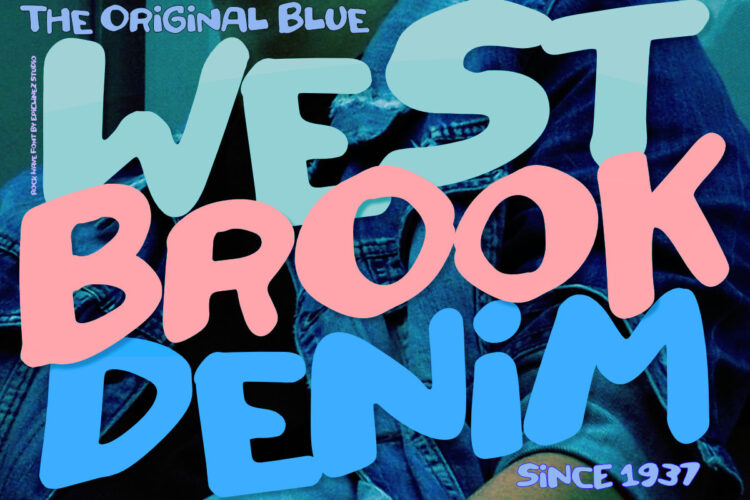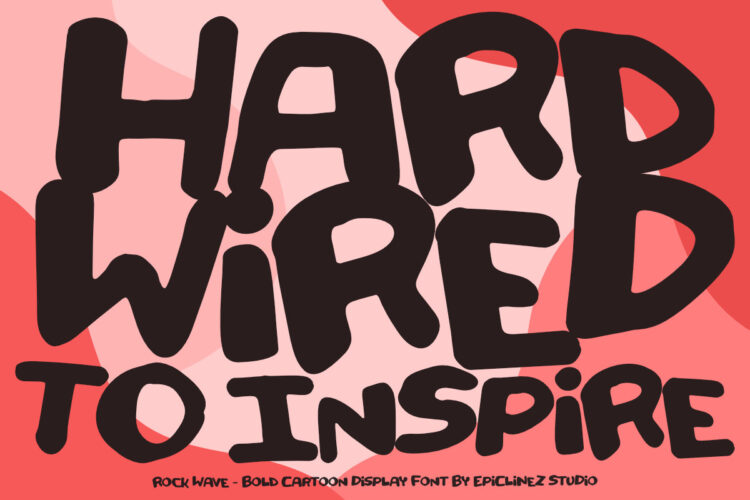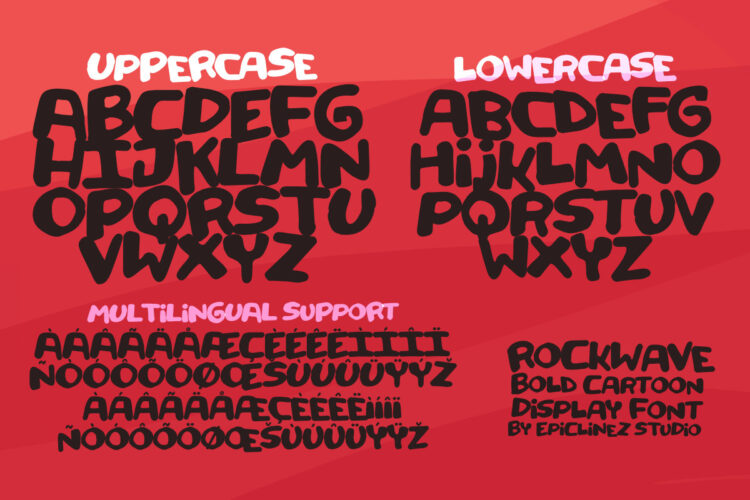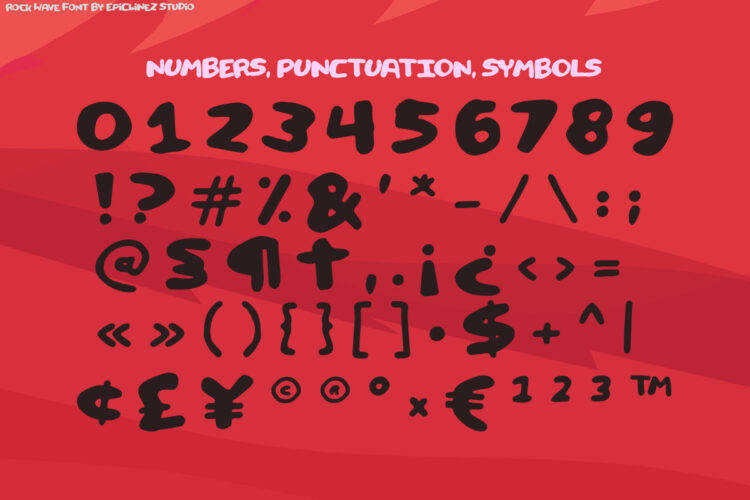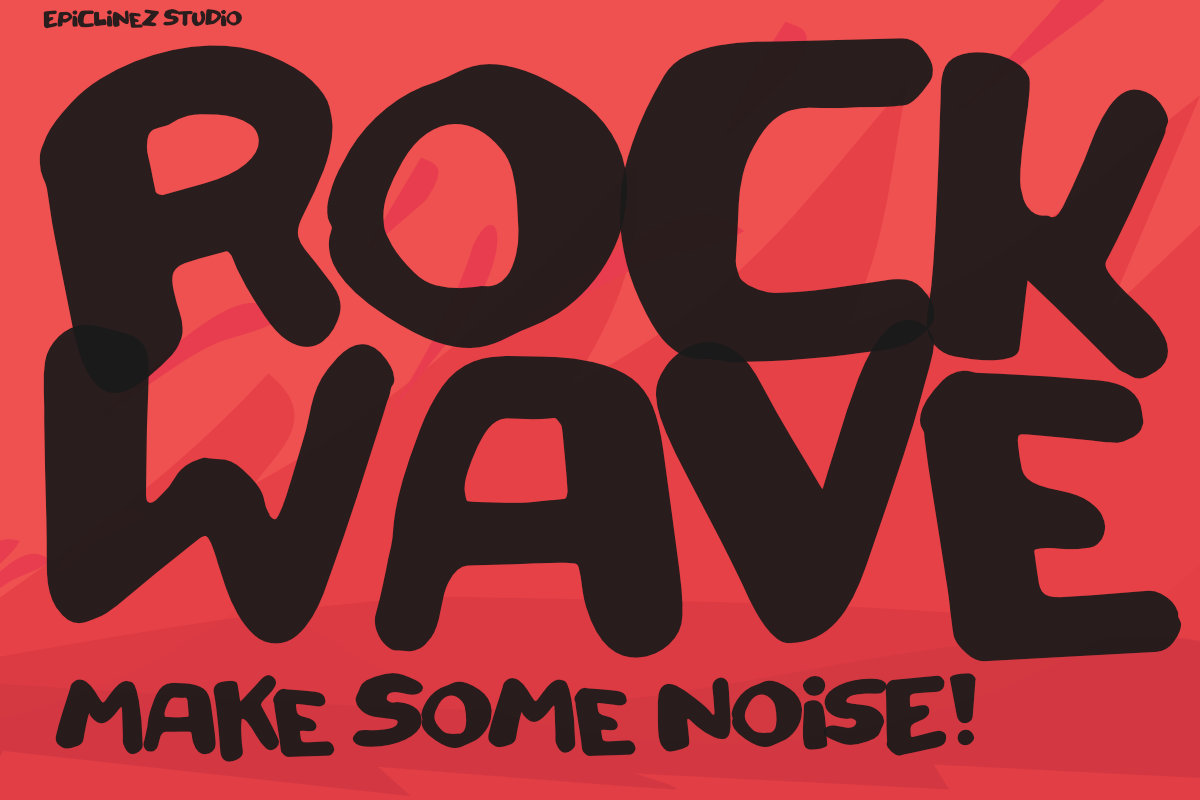
Rockwave is a bold and playful handwritten display font bursting with energy, personality, and fun. Featuring chunky, organic letterforms with a hand-drawn feel, this font delivers a cheerful and expressive look that’s perfect for eye-catching headlines and creative branding. Every character is designed with smooth curves and an authentic handmade touch, giving your projects a friendly, casual, and memorable appearance.
Whether you’re designing children’s books, toy packaging, snack brands, music festival posters, summer event promotions, logos, T-shirts, stickers, YouTube thumbnails, social media graphics, greeting cards, or playful merchandise, Rockwave adds an irresistible dose of creativity and excitement to every design.
- Uppercase & Lowercase
- Numbers & Punctuation
- Multilingual Support